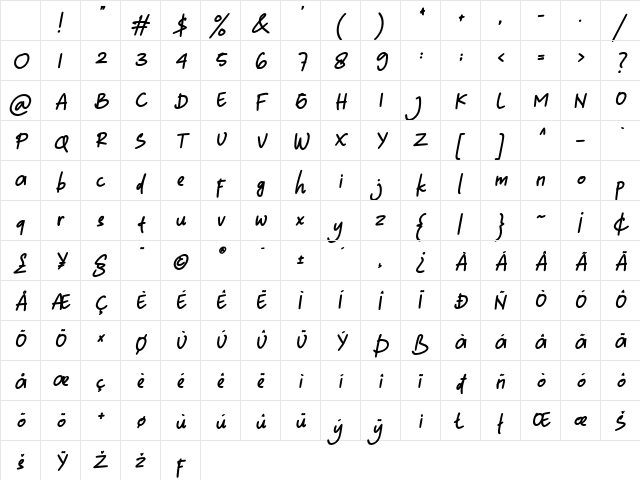
Complete Yournotes Bold Italic glyph index. Displaying only characters natively supported by Yournotes Bold Italic font.
Yournotes is a composed and adaptable typeface that performs quietly and consistently across a wide range of design contexts. The slanted form adds forward momentum and visual energy. Its bold stroke weight gives it real presence on the page.
Pro Tip: Use Yournotes for emphasis, pull quotes, and subheadings where its slanted energy can add rhythm to the layout.